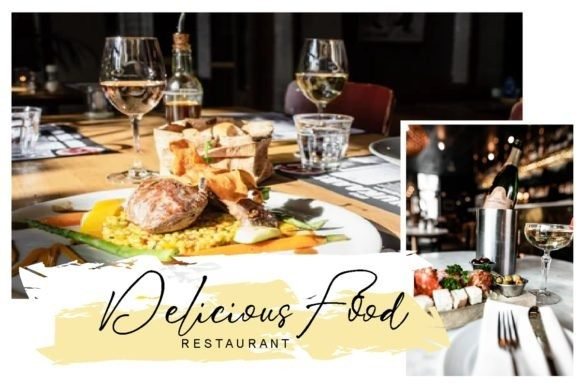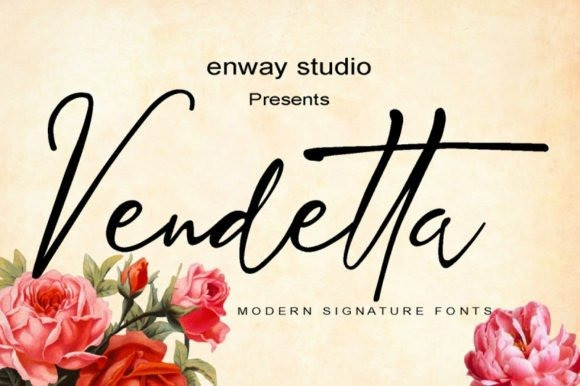
Vendetta Font
Vendetta Script Font
This is script collection font with natural movement make looks elegant, classy and beauty for your project. Dainty and fashionable, this font will be ideal for writing wedding invitations, cards or any other design that may need a romantic, customized touch!